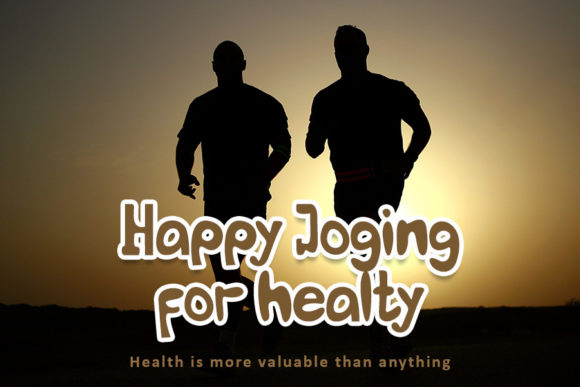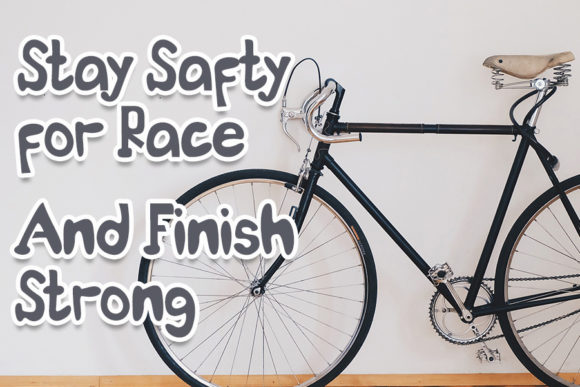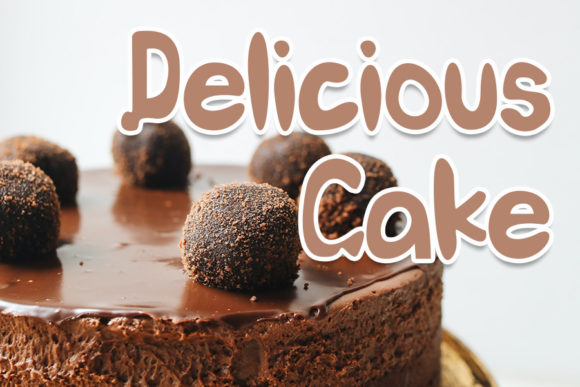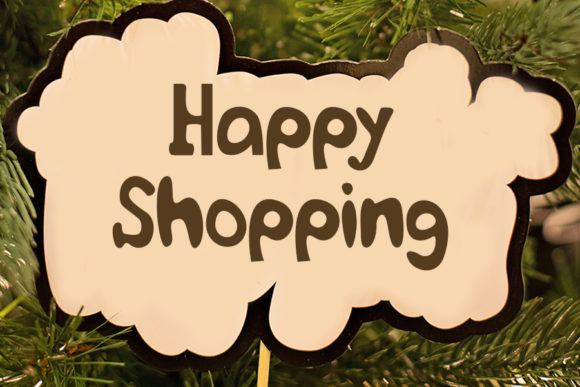
Introducing Hallimuna Font: Elevate Your Designs with Style and Uniqueness
In the world of typography, a font can make or break a design. For designers and crafters looking to add a touch of elegance and modernity to their projects, Hallimuna Font is an exceptional choice. This stylish and modern display font is not only friendly but also incredibly unique, making it adaptable to a variety of designs. In this article, we’ll dive into the features, benefits, and uses of Hallimuna Font, and explore how it can elevate your designs to the next level.
What is Hallimuna Font?
Hallimuna Font is a contemporary display font designed to make a statement. Its sleek lines, elegant curves, and distinctive style set it apart from more traditional fonts. Whether you’re working on a branding project, creating promotional materials, or crafting digital content, Hallimuna Font offers the versatility and sophistication you need to capture your audience’s attention.
Key Features of Hallimuna Font
- Stylish and Modern Design: Hallimuna Font boasts a modern aesthetic that is both stylish and eye-catching. Its unique design elements make it perfect for projects that require a fresh and contemporary look.
- Friendliness: Despite its modernity, Hallimuna Font maintains a friendly and approachable feel. This balance makes it suitable for a wide range of applications, from corporate branding to personal projects.
- Incredibly Unique: One of the standout features of Hallimuna Font is its uniqueness. It offers a distinctive style that can help your designs stand out in a crowded marketplace.
- Versatility: Hallimuna Font is incredibly versatile. It can be used for headings, titles, and any other display purposes. Its adaptability makes it a valuable addition to any designer’s font library.
Benefits of Using Hallimuna Font
Using Hallimuna Font in your designs comes with several benefits:
- Enhanced Visual Appeal: The modern and stylish design of Hallimuna Font can significantly enhance the visual appeal of your projects, making them more engaging and attractive to your audience.
- Improved Brand Identity: For businesses, using a unique and stylish font like Hallimuna can help strengthen brand identity and make your brand more memorable.
- Ease of Use: Hallimuna Font is easy to read and works well in various contexts, making it a practical choice for designers who need a reliable font for multiple projects.
- Creative Freedom: The uniqueness and versatility of Hallimuna Font give designers the creative freedom to experiment with different styles and layouts, pushing the boundaries of their designs.
Who Can Benefit from Hallimuna Font?
Hallimuna Font is an excellent choice for a variety of professionals and projects:
- Graphic Designers: Looking for a modern and stylish font to elevate their designs.
- Branding Experts: Seeking to create a strong and memorable brand identity.
- Digital Content Creators: Needing a versatile font for websites, blogs, and social media content.
- Crafters and Makers: Wanting to add a unique touch to their handmade products and marketing materials.
How to Use Hallimuna Font Effectively
To get the most out of Hallimuna Font, consider the following tips:
- Pair with Complementary Fonts: Use Hallimuna Font for headings and pair it with simpler fonts for body text to create a balanced and harmonious design.
- Experiment with Sizes and Colors: Don’t be afraid to experiment with different sizes and colors to make Hallimuna Font truly pop.
- Consider the Context: Think about the context in which your design will be used and adjust the style of Hallimuna Font accordingly to ensure maximum impact.
| Font Name | Hallimuna Font |
| Author | FL Space |
Hallimuna Font is a stylish, modern, and incredibly unique display font that can elevate your designs to new heights. Its friendly and versatile nature makes it suitable for a wide range of projects, from branding and advertising to digital content and crafting. By incorporating Hallimuna Font into your design toolkit, you’ll be able to create visually stunning and memorable designs that capture your audience’s attention. So why wait? Discover the creative possibilities with Hallimuna Font today and take your designs to the next level.